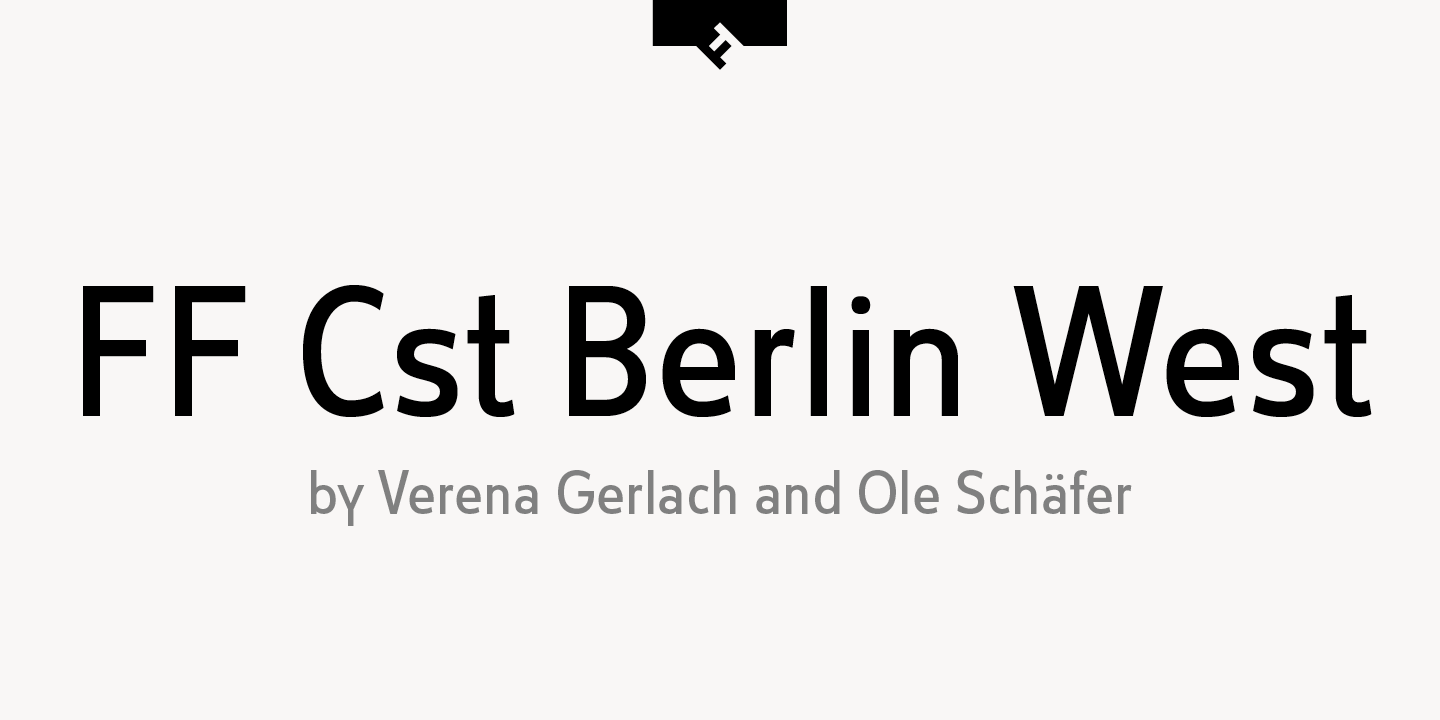
For designers seeking a font with a unique historical context and a clean, pragmatic aesthetic, FF Cst Berlin West Font Free Download offers a fascinating choice. It’s important to remember, however, that while an FF Cst Berlin West Font Free Download might be available for personal and testing purposes, a commercial license is required for any professional or revenue-generating projects. This ensures legal compliance and provides essential support to the talented font designers who brought this iconic typeface to digital life.
The FF Cst Berlin West Font is exceptionally well-suited for projects that demand a sense of urban history, clarity, and a straightforward, functional style. Originally inspired by the street signs of West Berlin, its design features a clear, sans-serif structure with a distinctive character, making it an excellent choice for urban branding, public signage, and wayfinding systems. It's ideal for museum exhibits focusing on historical periods, documentary titles, and publications related to city planning or architecture. Furthermore, consider FF Cst Berlin West Font for contemporary design projects that aim for a minimalist yet characterful aesthetic, as well as editorial layouts where legibility and a sense of place are important.
What makes the FF Cst Berlin West Font so exciting is its authentic connection to a specific historical and geographical context. It embodies the spirit of a city, offering a blend of functionality and subtle individuality that sets it apart from more generic sans-serifs. This characteristic allows it to communicate a sense of heritage, reliability, and clear communication, making your message resonate with an audience that appreciates thoughtful design. It’s a font that doesn't just display text; it carries a piece of urban narrative, adding a layer of historical depth and unique charm to any creative endeavor. Its distinctive aesthetic ensures your work will stand out with an intelligent and purposeful presence.
The FF Cst Berlin West Font family typically offers a concise range of weights, focusing on the core utility of its design. You'll often find essential weights such as Regular, Medium, and Bold, sometimes with an Original Regular style that captures the purest essence of its historical inspiration. While not as expansive as some other large font families, these weights provide sufficient versatility for creating clear hierarchies and impactful displays, staying true to its origin as a highly legible and functional typeface.